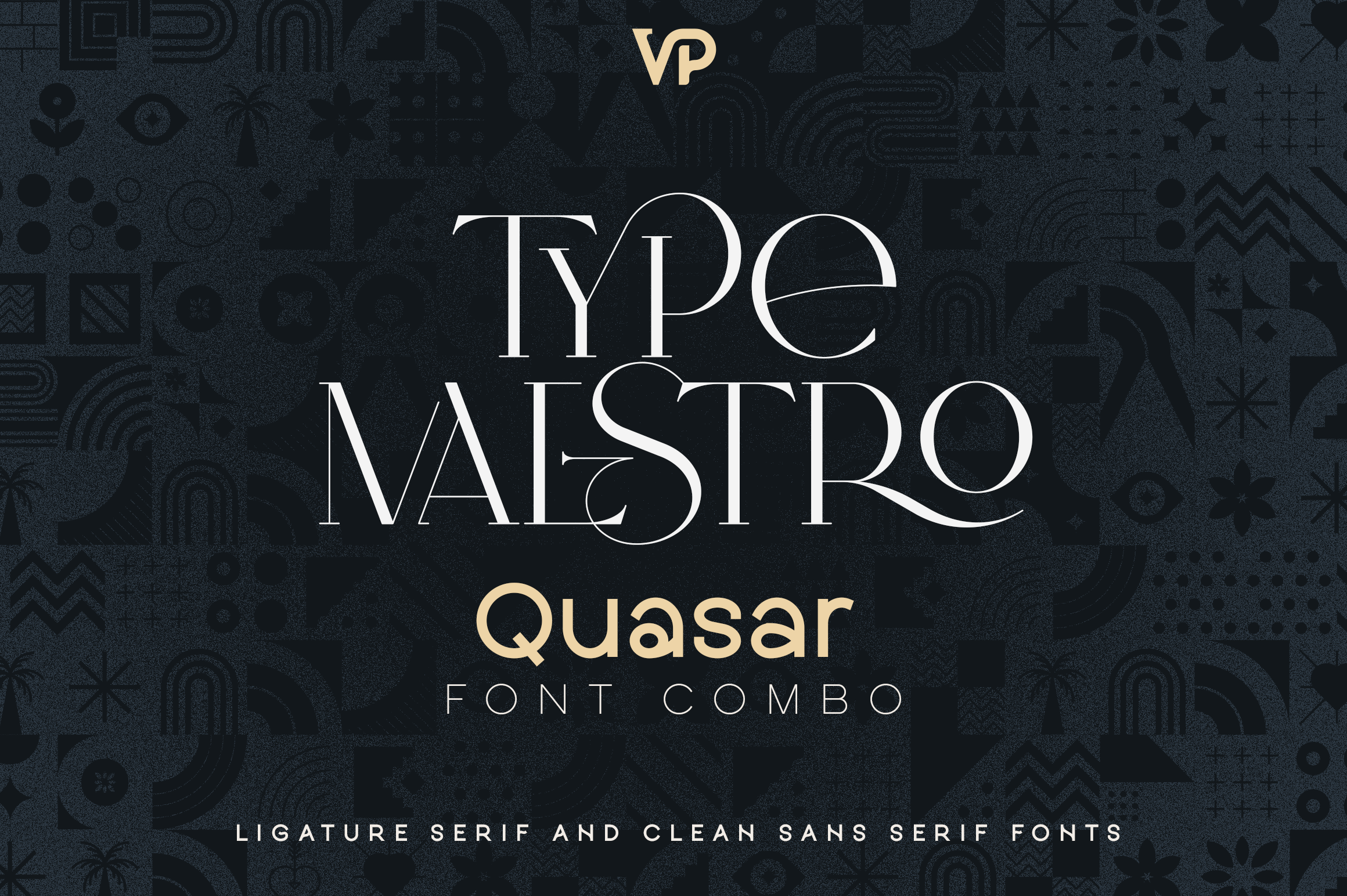
Introducing the Type Maestro + Quasar Font Duo – a powerful combination of elegance and modernity that takes your typography to the next level. This dynamic duo offers a perfect balance between a refined serif and a versatile sans serif, providing you with an extensive range of creative possibilities.
Quasar is a clean and modern sans serif font that shines with its six distinct weights, delivering everything from bold, impactful statements to subtle, refined looks. With 12 carefully crafted fonts, Quasar ensures consistency and harmony across your designs. It also comes equipped with cool frames and icons, adding a touch of sophistication to any project. Supporting both Latin and Cyrillic scripts, Quasar covers 95 languages, making it a true global asset for your designs, whether for print, digital, or branding.
Type Maestro complements Quasar with its exquisite ligature serif design. Boasting over 100 meticulously crafted ligatures and alternate glyphs, Type Maestro adds creativity and individuality to your text. Its extensive language support for 87 languages makes it a versatile choice for projects aimed at a global audience. Whether you're designing logos, websites, or social media posts, Type Maestro ensures your work stands out with elegance and sophistication.
Together, the Type Maestro + Quasar Font Duo offers a world of creative expression, from modern, clean designs to elegant, personalized typography. Perfect for designers seeking a blend of professionalism and style, this font duo is your go-to choice for creating timeless masterpieces across any medium.